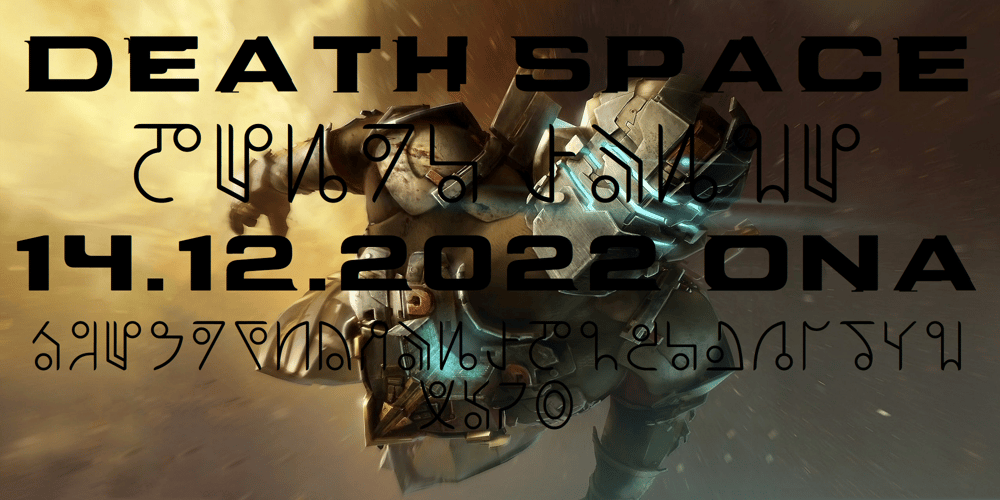
Ongunkan Death Space Font Family was designed by Osman Nuri ALKAN and published by Runic World Tamgacı. Ongunkan Death Space contains 1 styles and family package options. Dead Space is a science fiction/horror media franchise created by Glen Schofield and Michael Condrey, developed by Visceral Games, and published and owned by Electronic Arts. The franchise’s chronology is not presented in a linear format; each installment in the Dead Space franchise is a continuation or addition to a continuing storyline, with sections of the storyline presented in prequels or sequels, sometimes presented in other media from the originating video game series, which includes two films and several comic books and novels.This font is related to the video game Death Space, I redrawn this font to make it a font with a minimum character set.